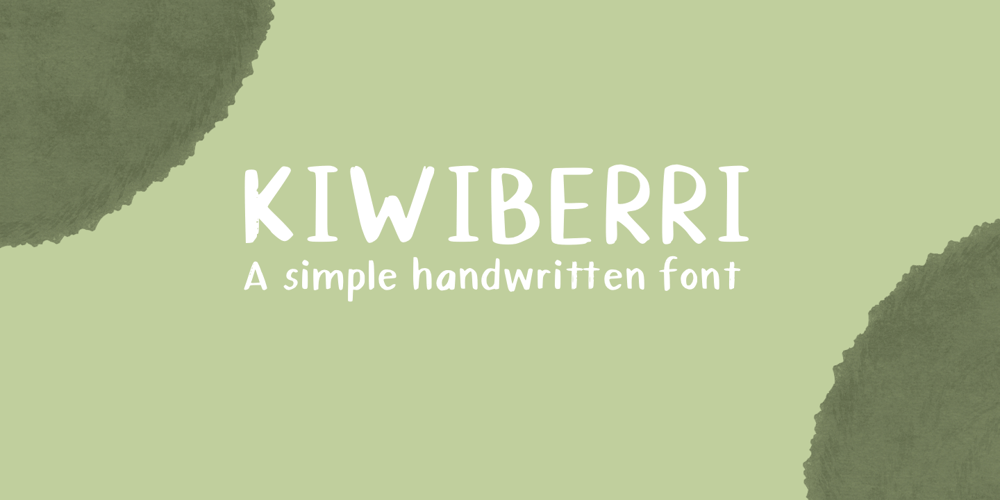
Kiwiberri
Kiwiberri font
Kiwiberri Font Family was designed by Alessa Jo and published by Melonaqua. Kiwiberri contains 1 styles and family package options. Introducing Kiwiberri, a fun and playful handwritten font that you can use for your home or work projects. You can put it on shirt designs, mug designs, printable chalkboards, printable planners, websites, note-taking apps, wall art, greeting cards, and many more. The sky is the limit. This is multilingual so it is compatible with other languages.Kiwiberri is created to showcase handwritten fonts using brushes.